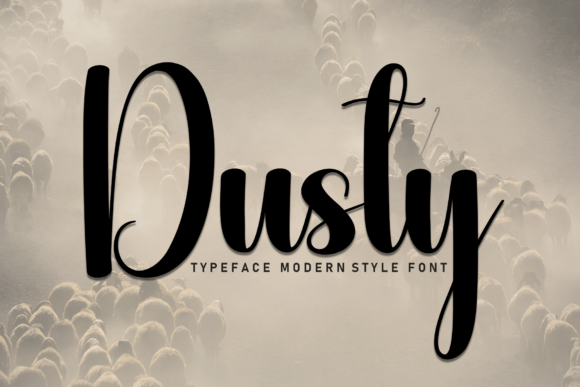
Unleash your creativity with Dusty Font, a captivating script font that exudes charm and elegance. Designed by the talented William Jhody, Dusty Font is the perfect choice for adding a touch of sophistication to your digital creations. Inspired by the beauty of handwritten letters, this font possesses a unique charm that will make your words stand out from the crowd.
Indulge in the artistic flow of Dusty Font, where each letter dances gracefully across the page. Its smooth curves and delicate strokes create an enchanting visual harmony that draws the eye and captivates the senses. Whether you're designing wedding invitations, greeting cards, website banners, or social media posts, Dusty Font will elevate your designs to new heights.
Immerse yourself in a world of endless possibilities with Dusty Font. Its versatility knows no bounds, making it the perfect companion for a wide range of creative projects. From creating stunning logos and branding materials to crafting eye-catching posters and flyers, Dusty Font will add a touch of elegance and charm to any design.